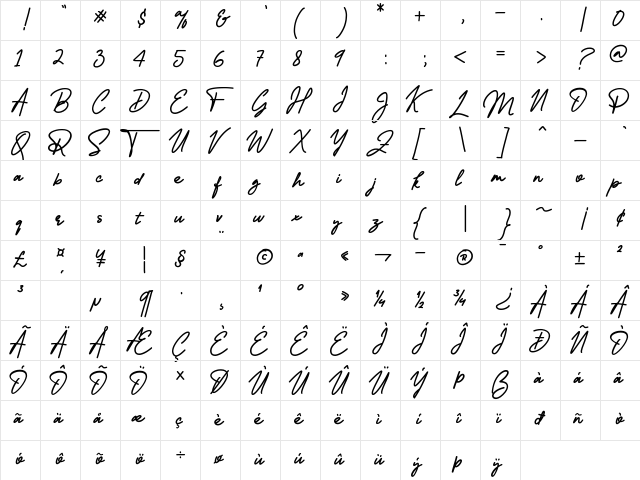
Reallishmy Regular
Design Context for Reallishmy Typeface
Reallishmy is a composed and adaptable typeface that performs quietly and consistently across a wide range of design contexts.